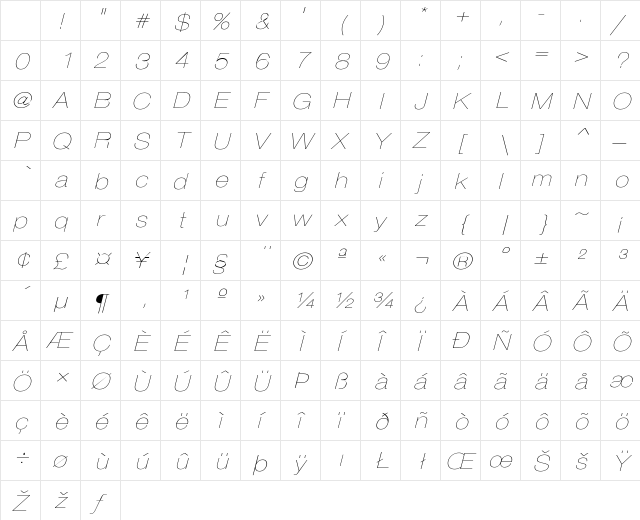
HelveticaExtObl-Thin is a composed and adaptable typeface that performs quietly and consistently across a wide range of design contexts. Its slender proportions lend an understated elegance to any composition.